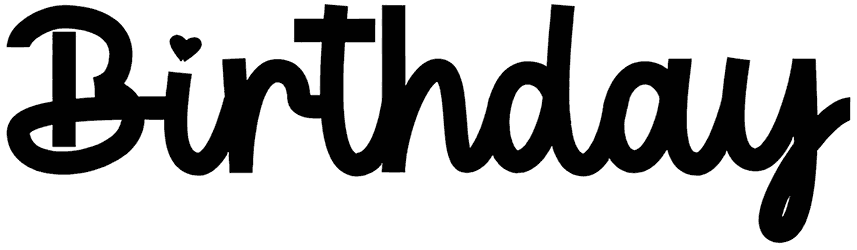
Birthday Font
Would you like to show your design with a distinct and melodious face? Let’s try this birthday font with a modern and lovely vibe, which is called Birthday. You can strikingly illustrate your contexts, for example, invitation cards, planners, novels, or a lot more others, and show your creativity with this unique font.